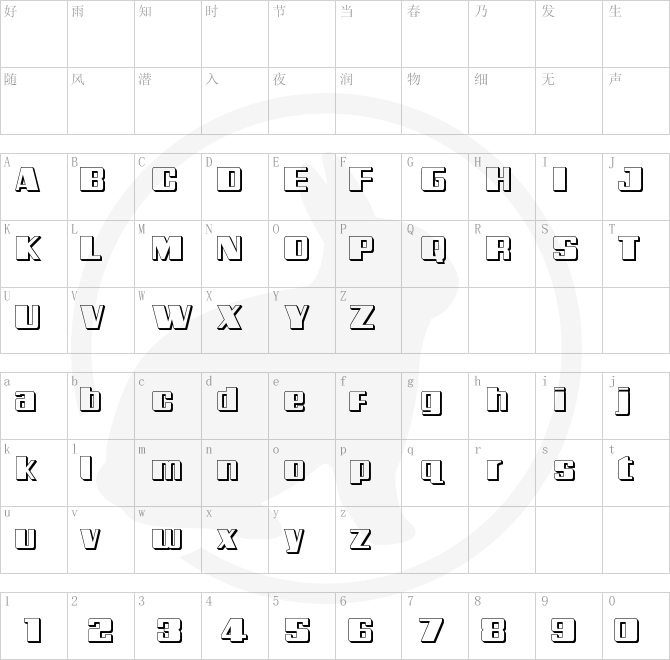
- Font Name:Galactic Storm 3D
Galactic-Storm-3D.ttf is a very beautiful artistic font, Galactic-Storm-3D.ttf is widely used in the design and printing of various books and pictures,Galactic-Storm-3D.ttf has a strong visual impact,Galactic-Storm-3D.ttf is a commonly used font in newspapers, magazines and books, and is used in posters, e-commerce Poster design, store design, logo design, font design and other fields.Galactic-Storm-3D.